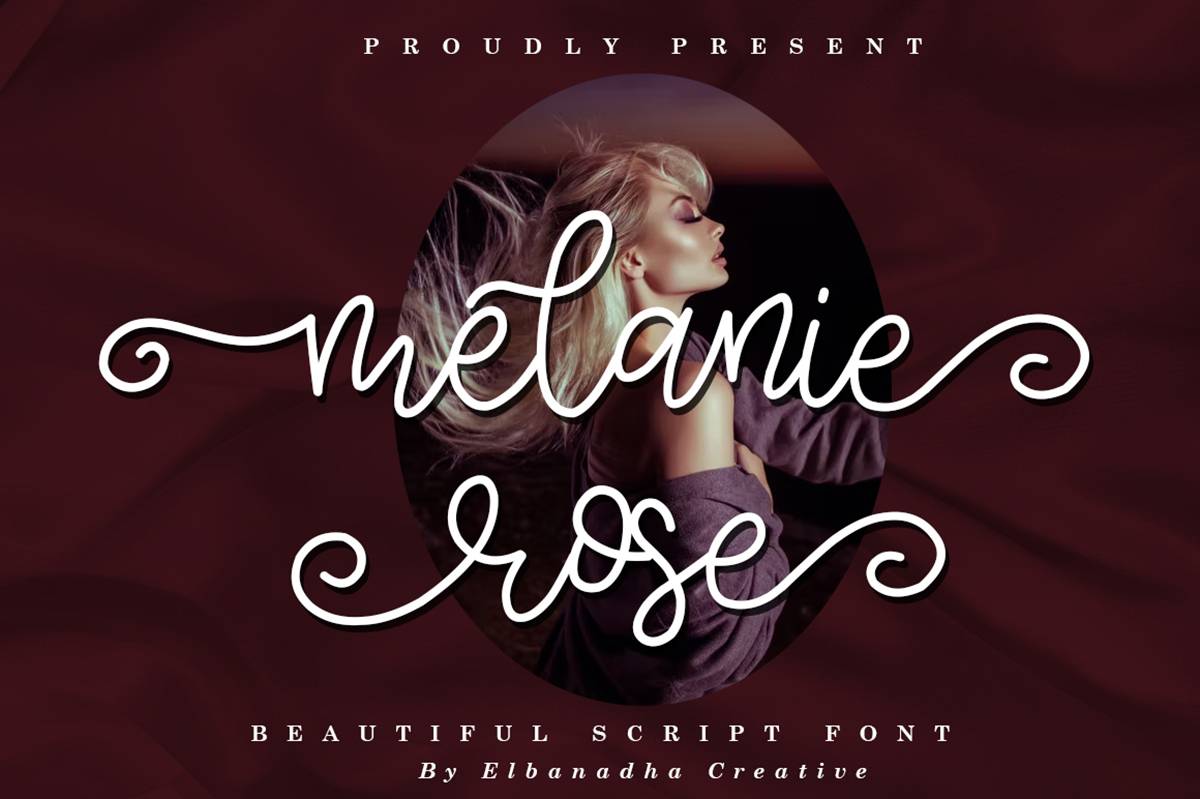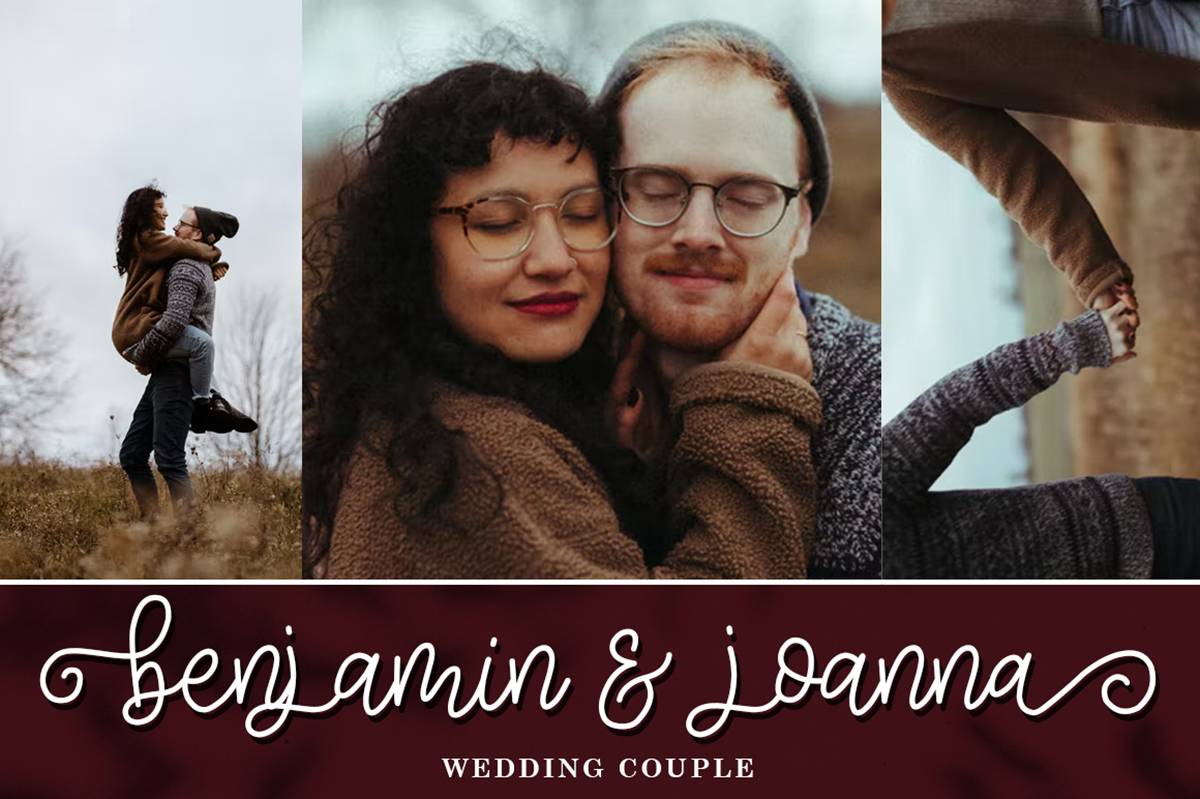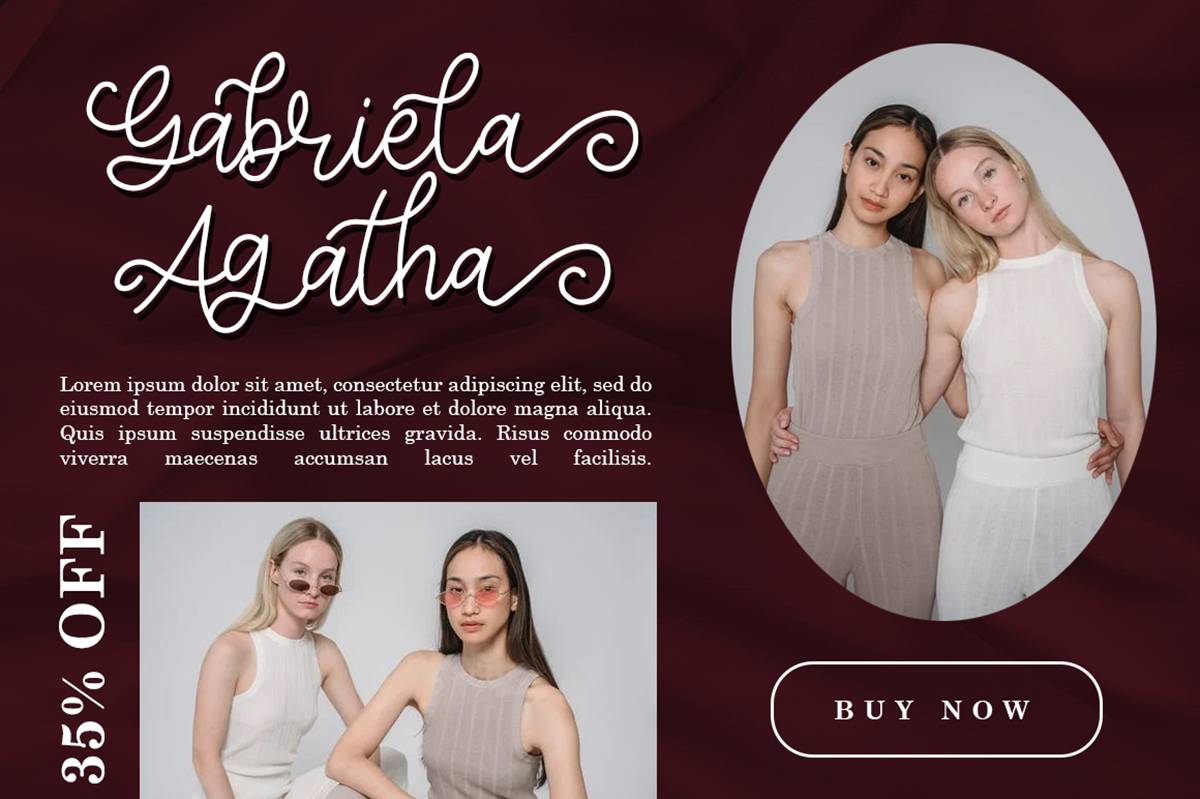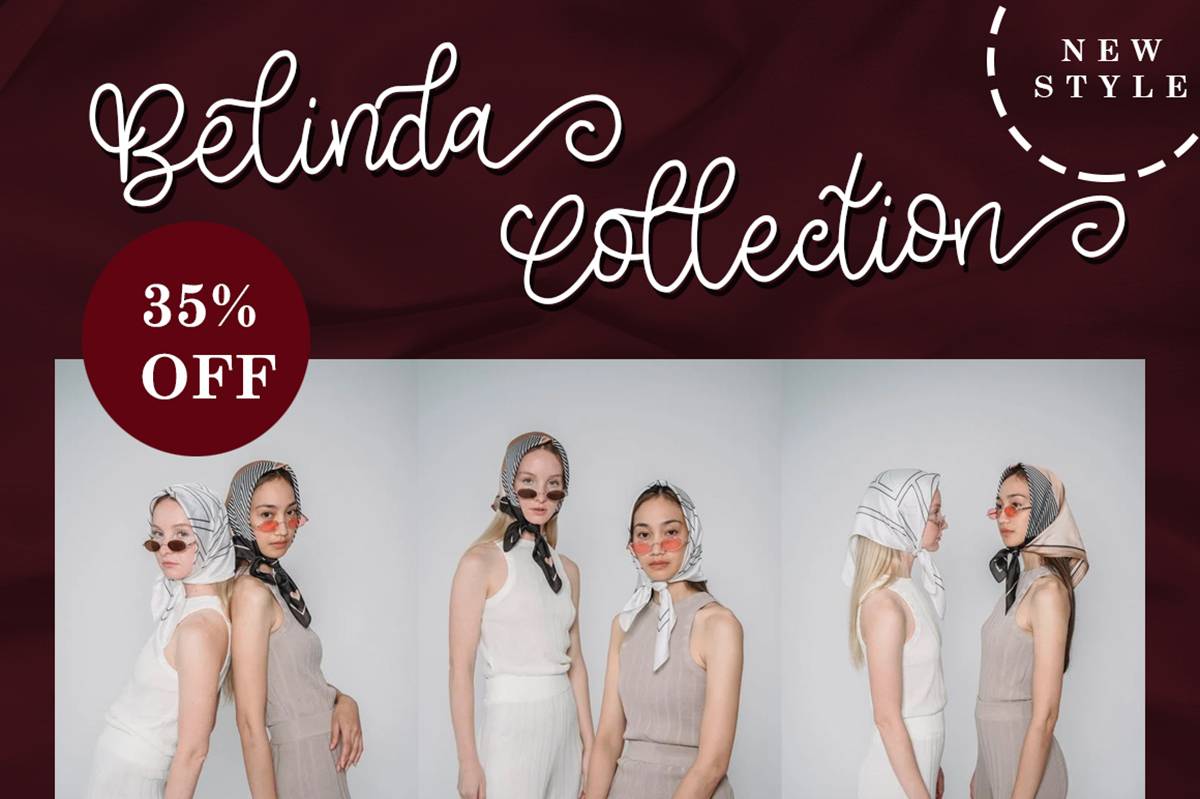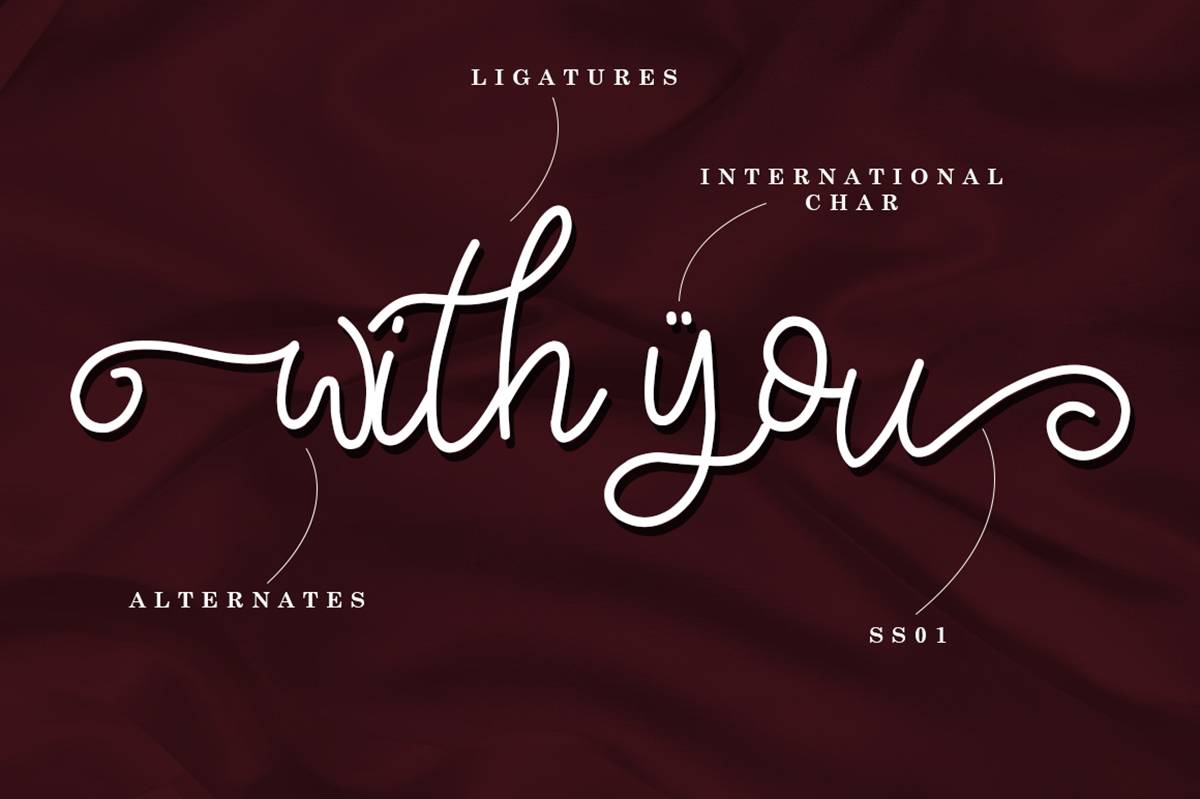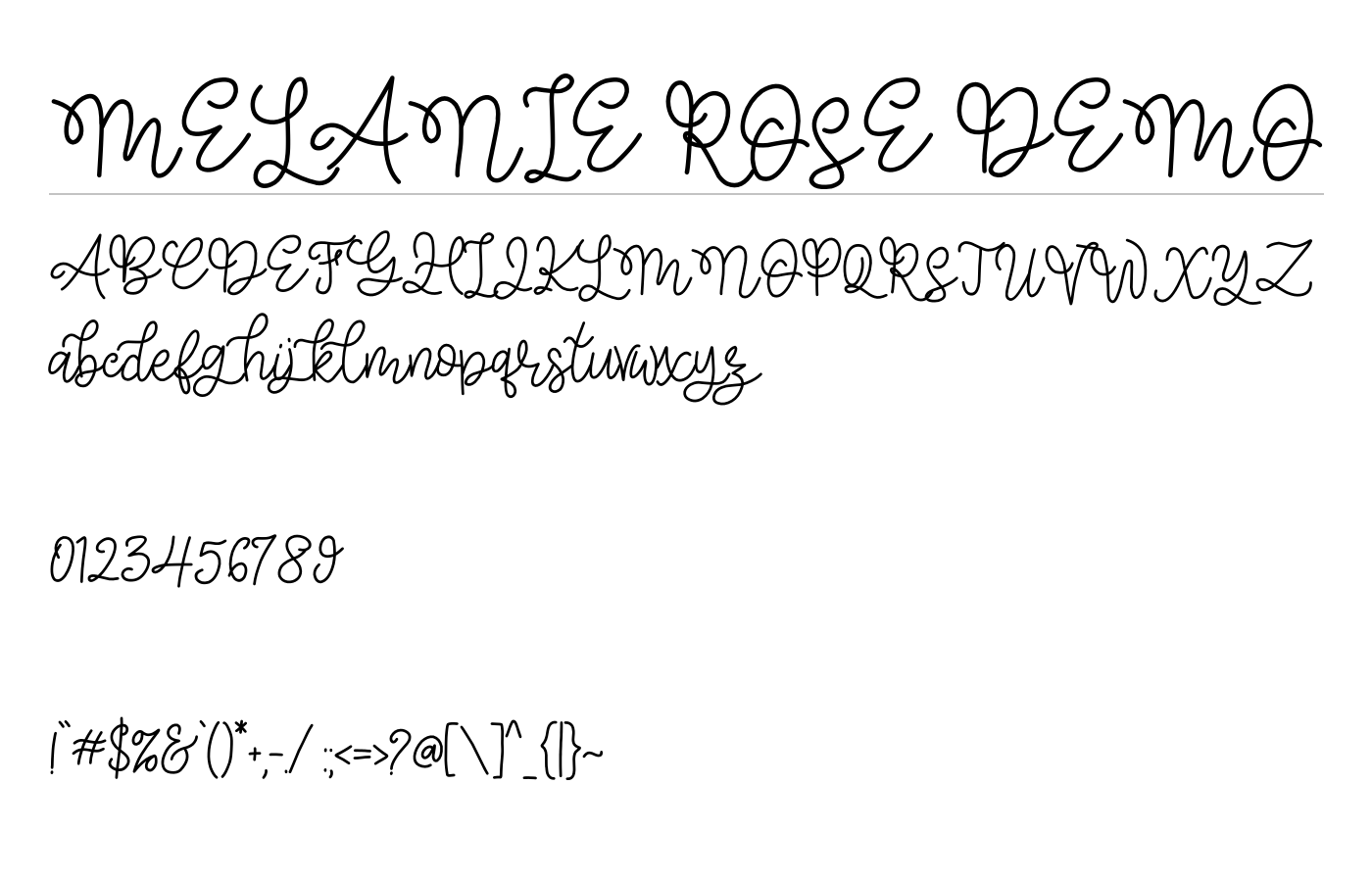
Melanie Rose is a delicate and elegant handwritten script font characterized by its thin, flowing lines and whimsical curls. Its light weight and airy style make it perfect for feminine, romantic, or creative projects such as invitations, branding, and decorative headlines. This font brings a charming, playful personality while maintaining readability and sophistication.
Melanie Rose Font
About Melanie Rose Font
| Font family | Melanie Rose Font |
| Designer | Elbanadha Creative |